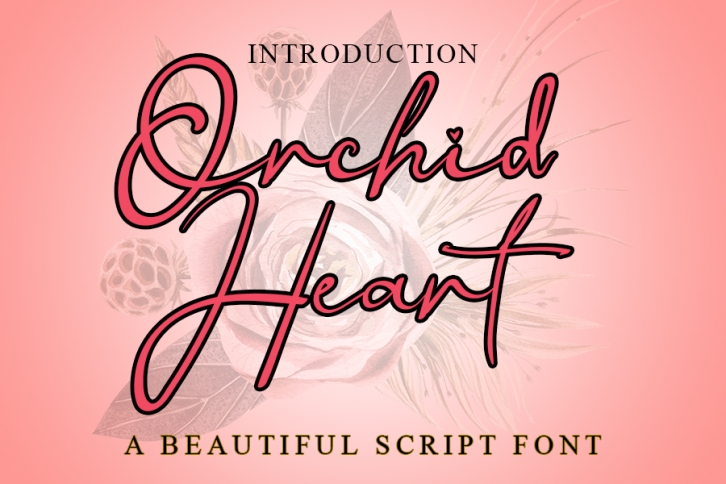
Orchid Heart is a lovely handwritten font. With its elegant characters and sleek style, this typeface will elevate the look of all your beautiful creations!